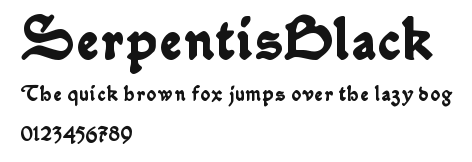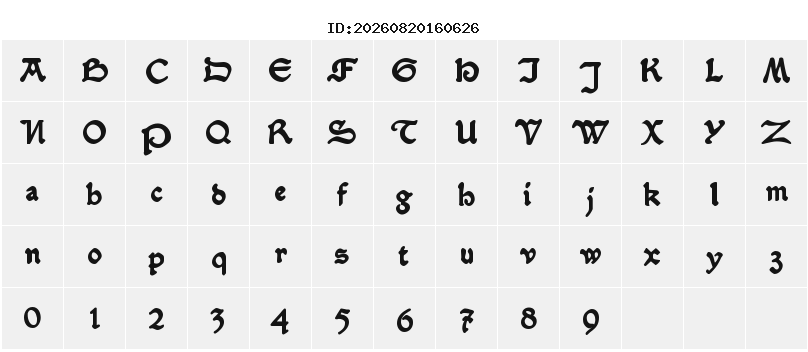
• Copyright: E.W.Tieffenbach for Officina Serpentis, 1913.
• Description: Based on a Gotico-Antiqua by Peter Schoeffers (Mainz, 1462) which was refined in the late 15th century by Creussner und Koberger.